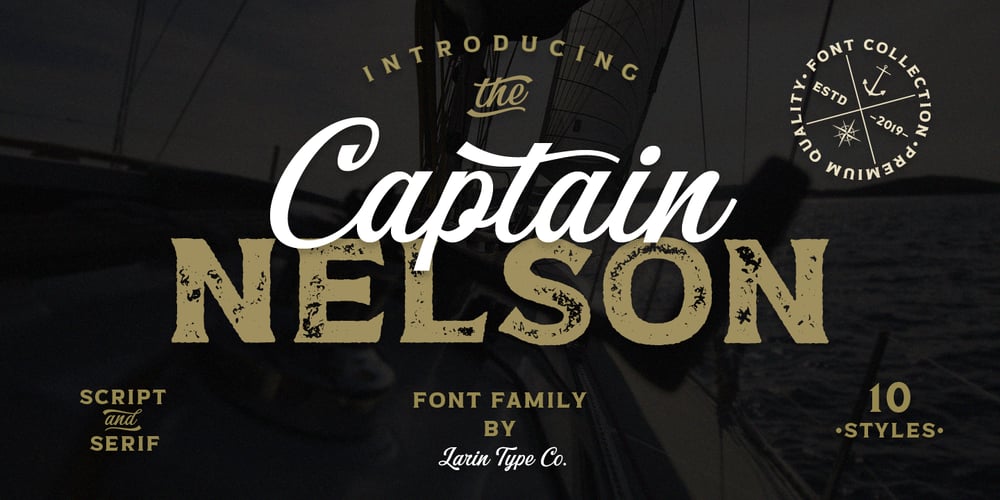
Captain Nelson Font Family was designed by Pavel Larin and published by Larin Type Co. Captain Nelson contains 10 styles and family package options. Captain Nelson is a beautiful collection of fonts, which consists of a script and serifs. In this collection you will see serifs in a clean style, inline style, rough style, inline rough style, printed, lined style, and the script style in clean, rough, printed, lined version. With their help, a lot of options are opened for you to create your projects, both in vintage and in modern style. The script fonts in this collection provides charisma and charm, it is carefully assembled and supplemented with alternates and swashes. The Serifs come in 6 styles and make it possible to choose the style that is necessary for your design.